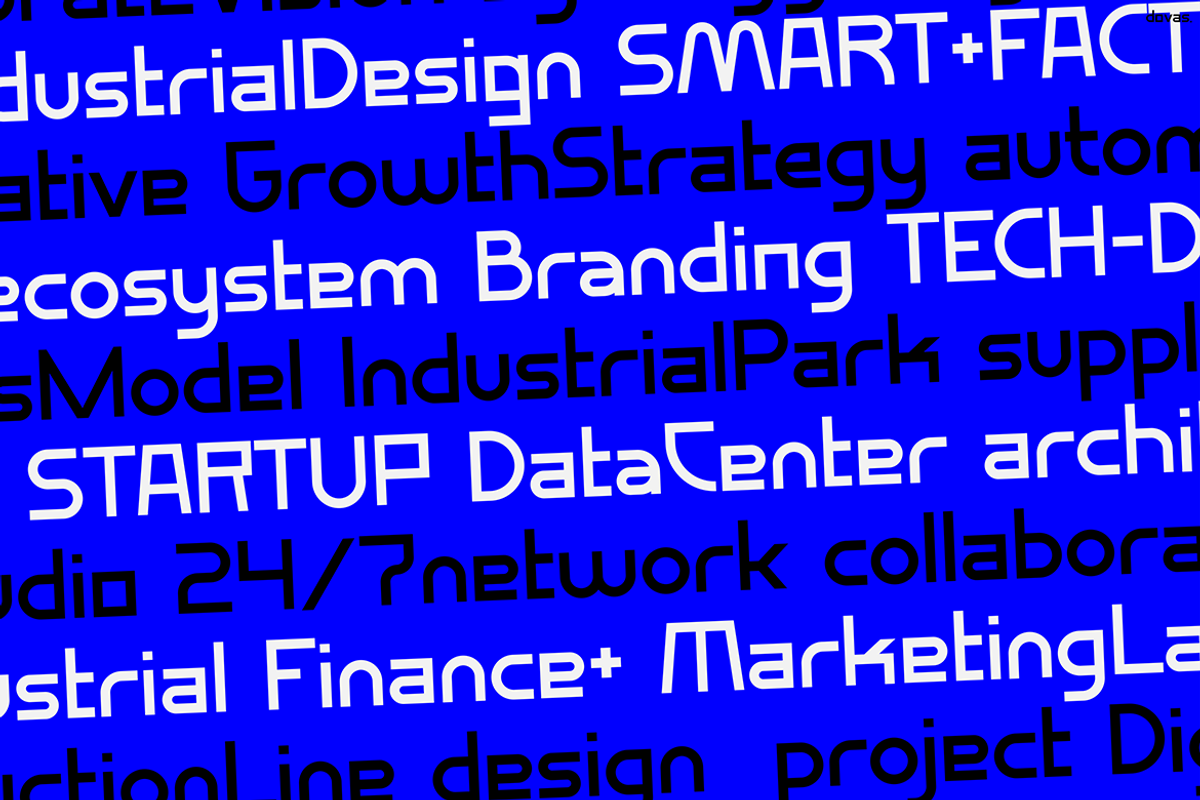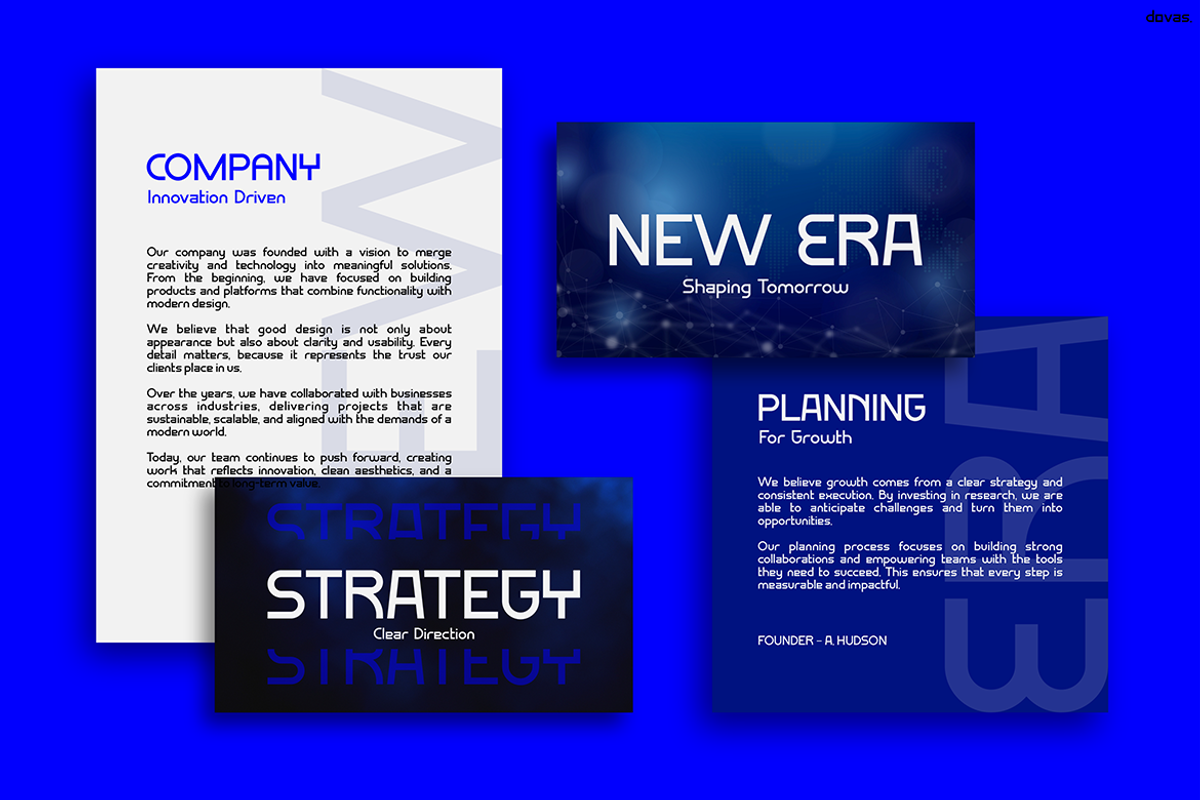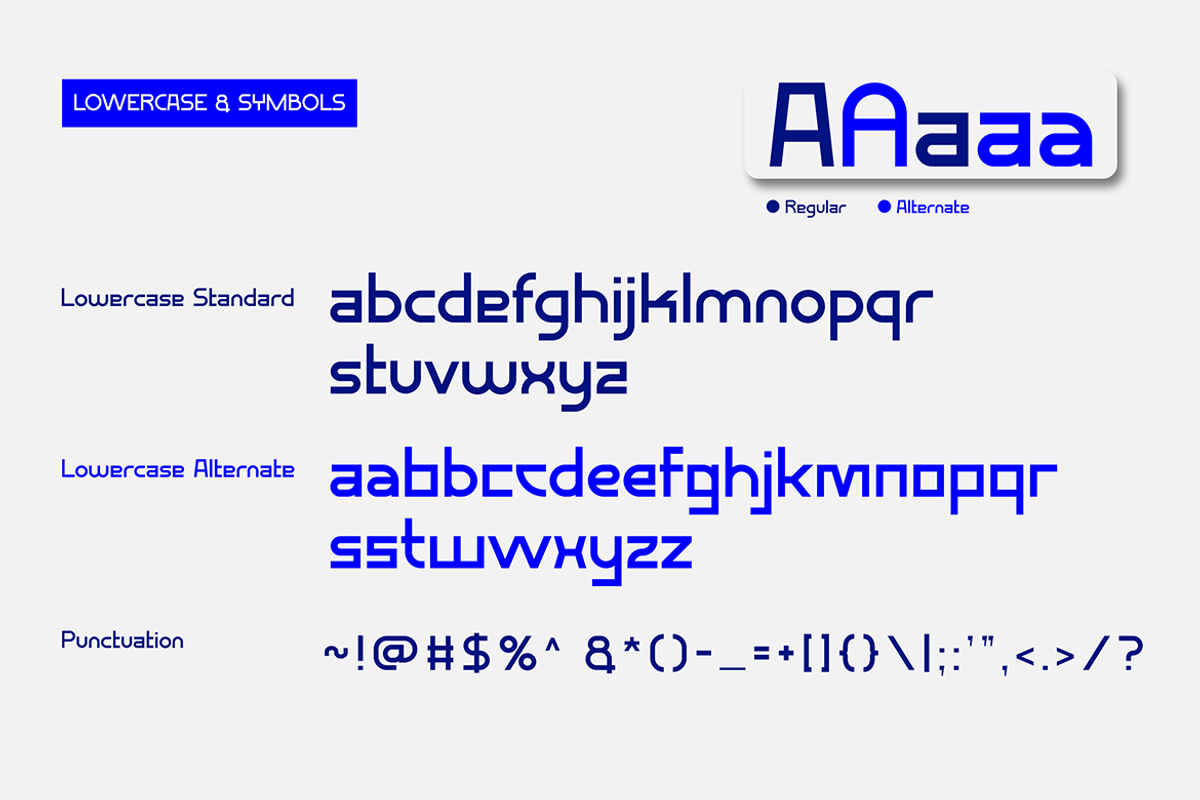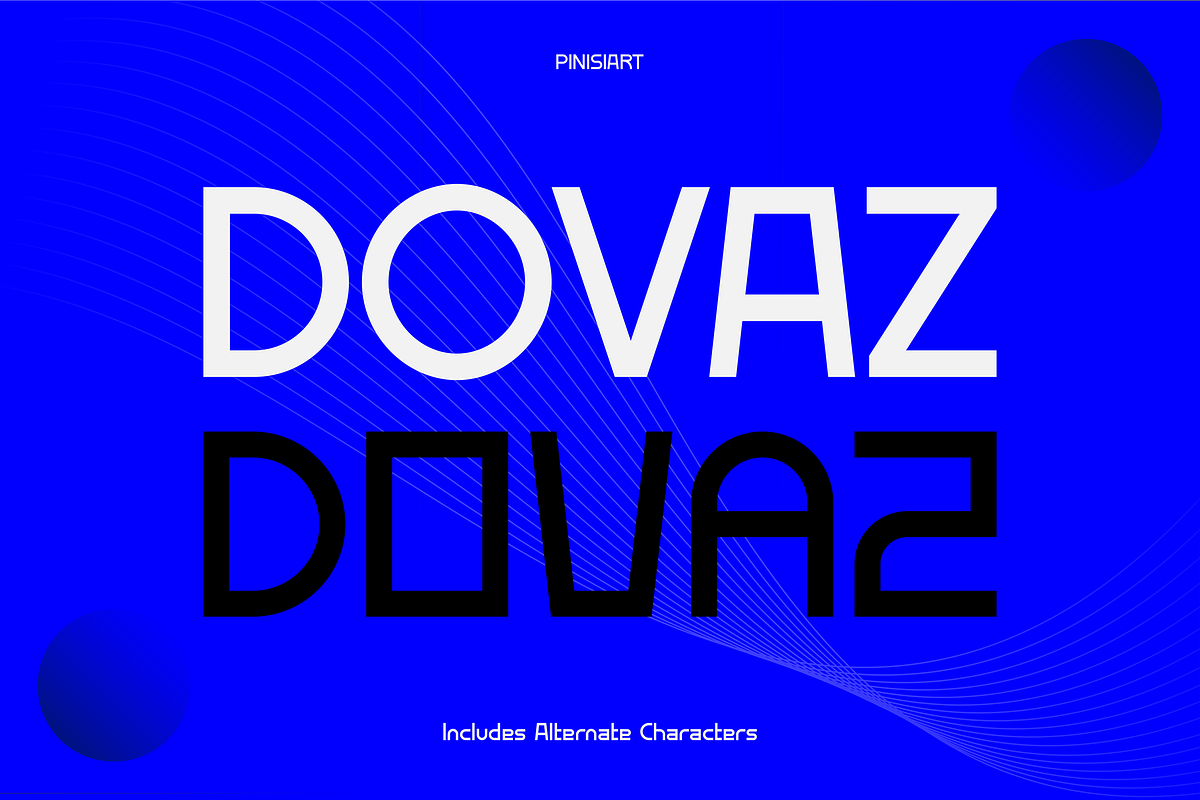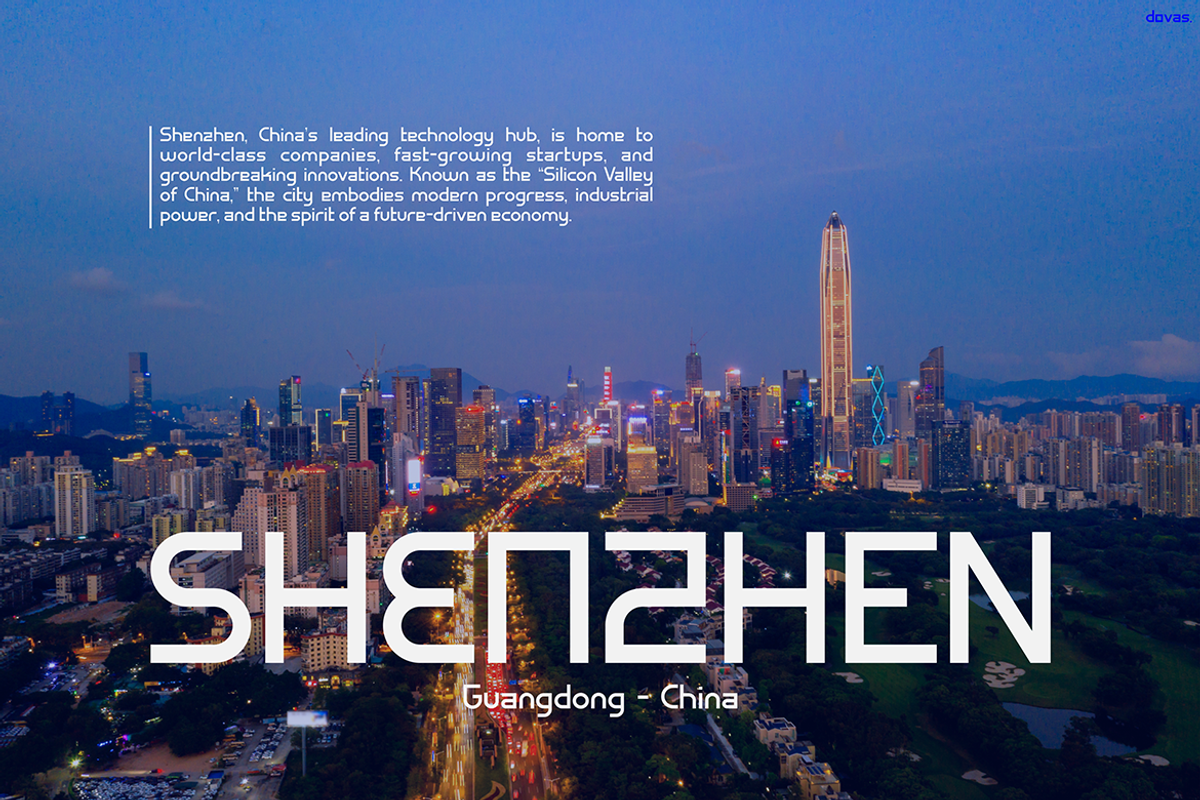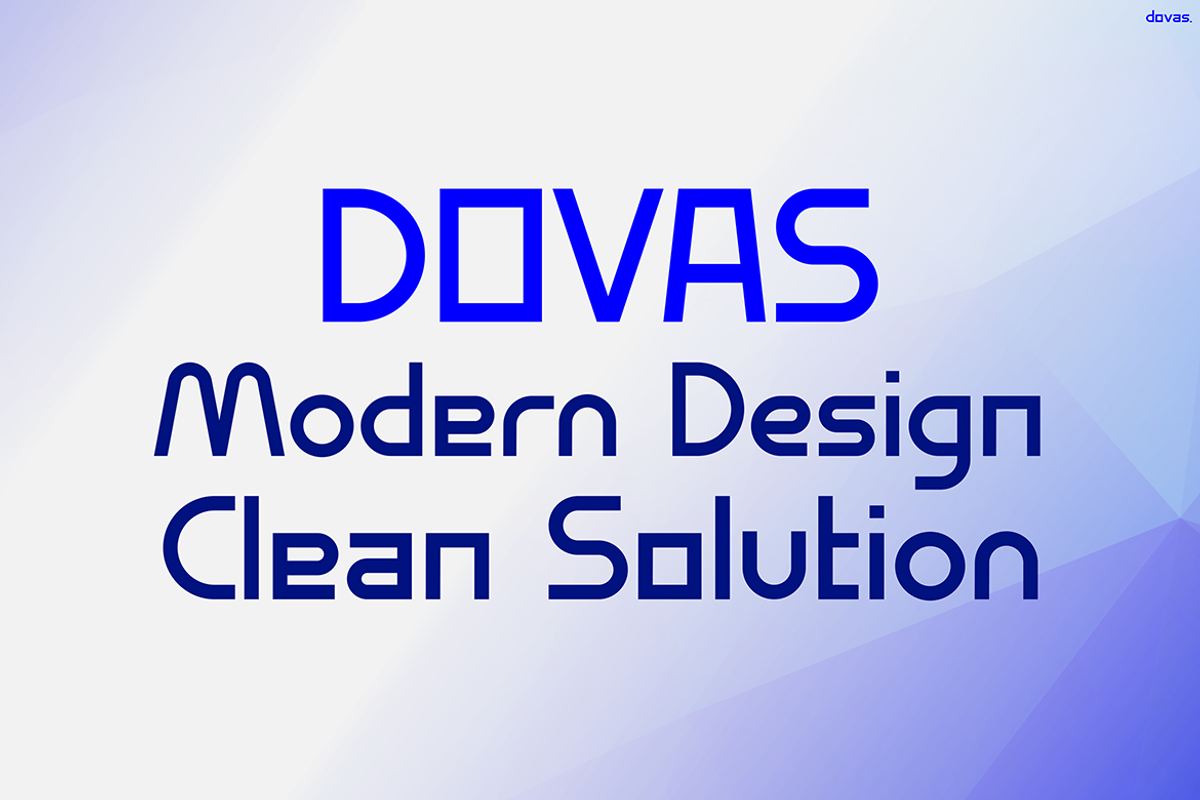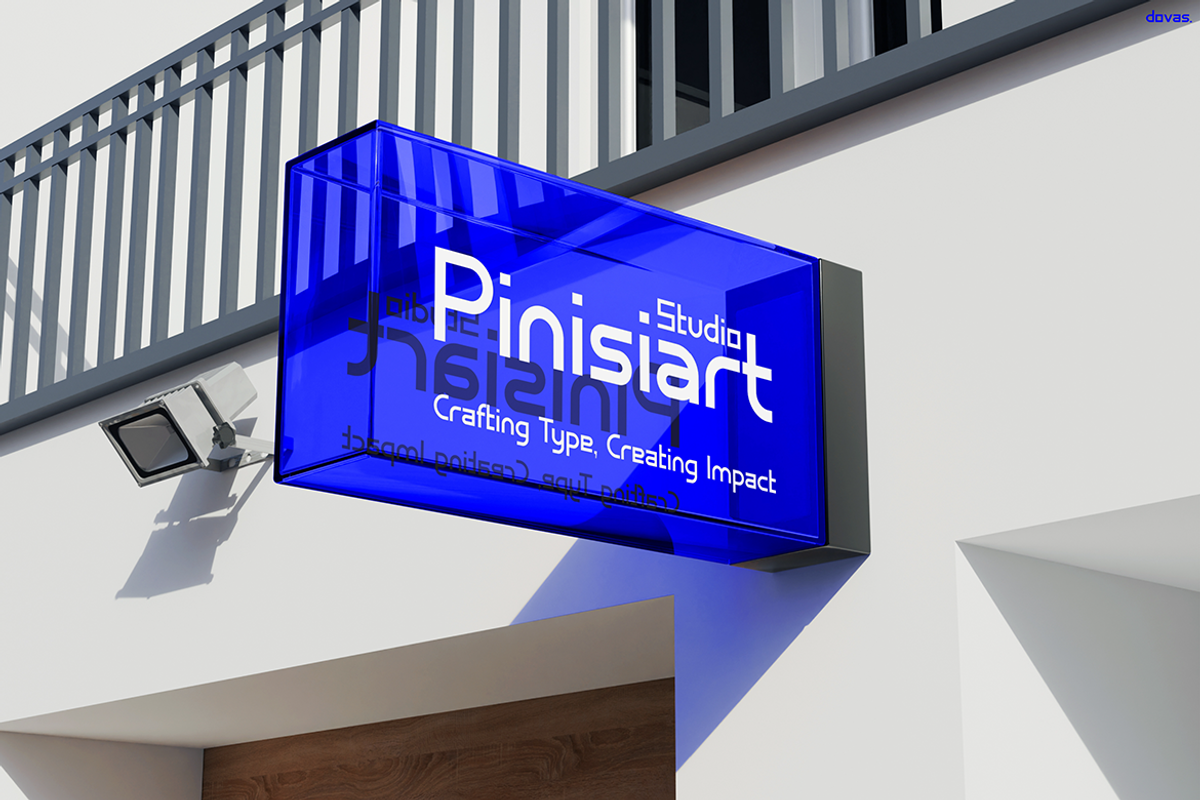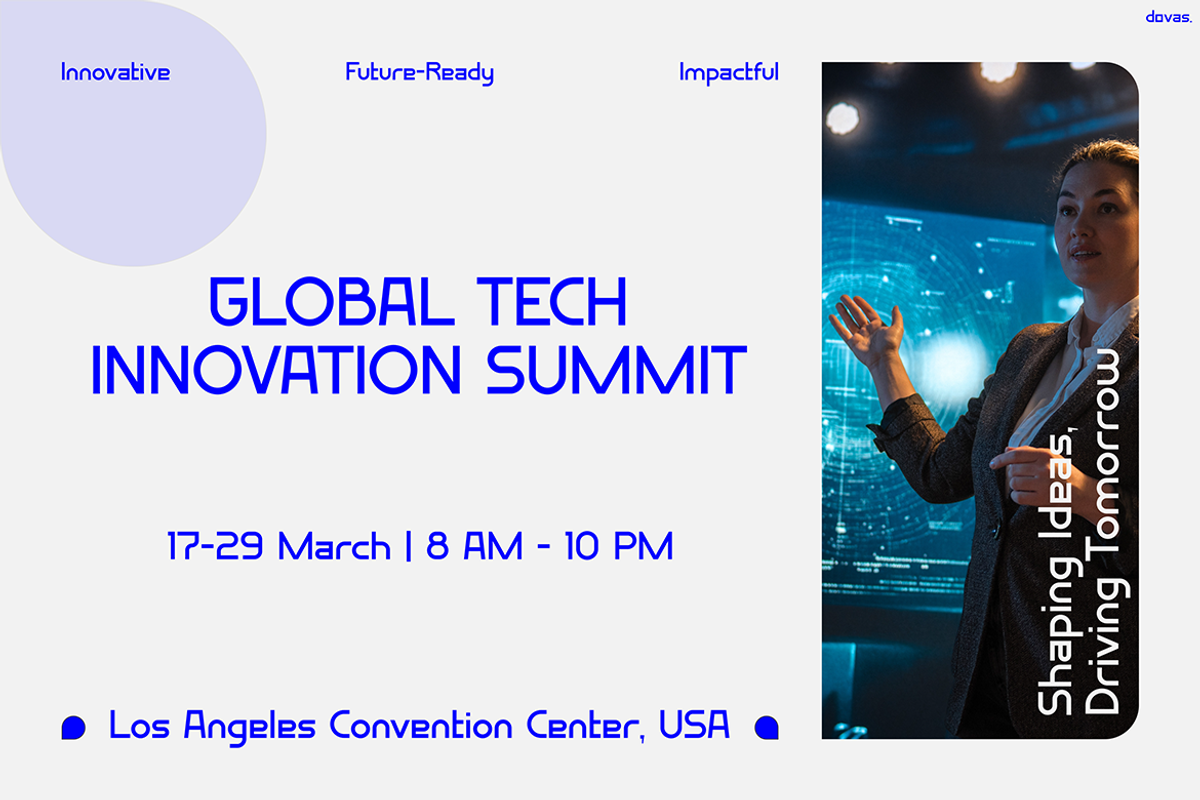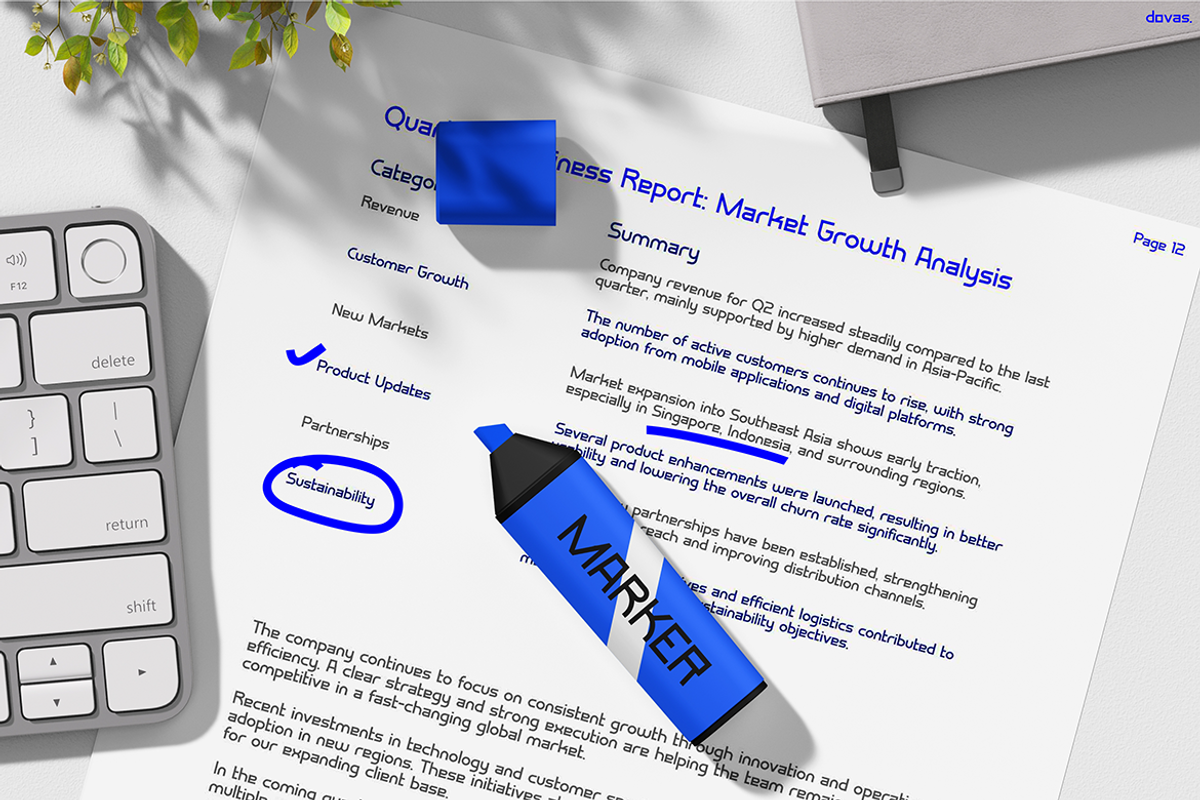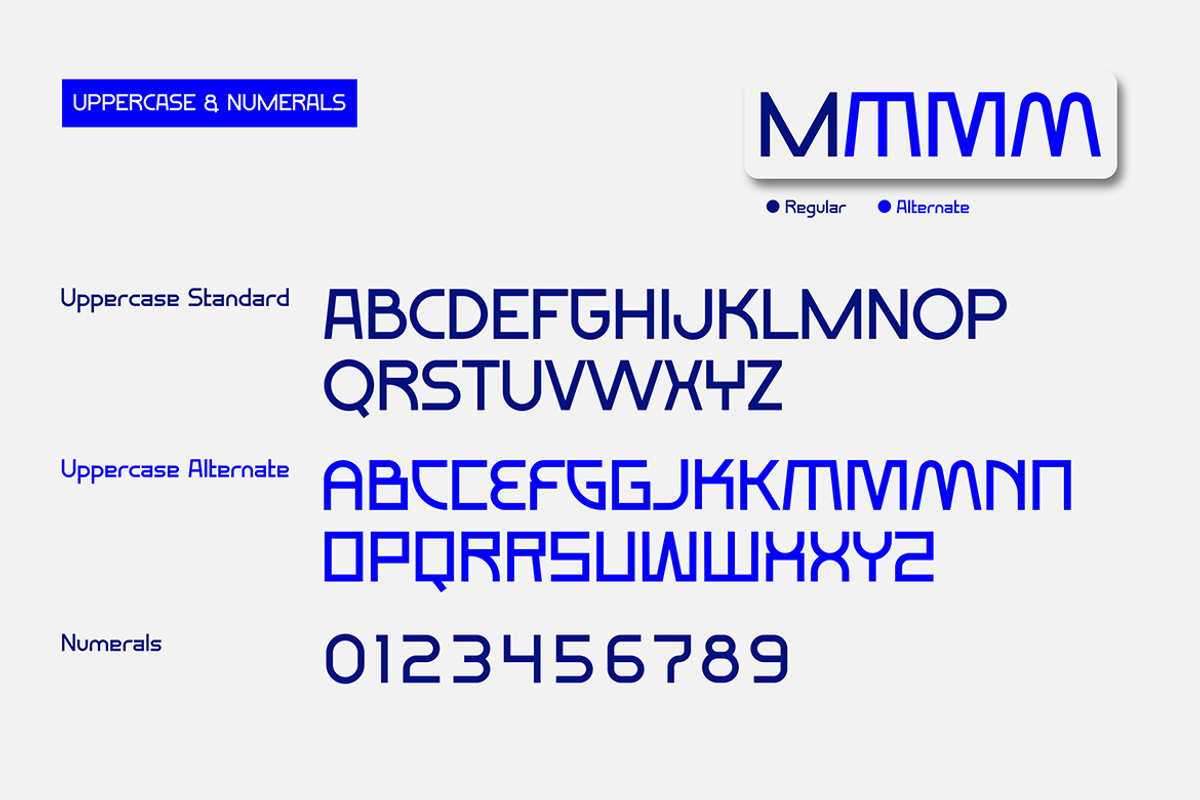
DOVAZ
Futuristic Font DOVAZ – Bold, Modern, and Versatile
Futuristic Font DOVAZ is a striking typeface with bold geometric forms and clean modern lines. It offers a strong futuristic look that feels both unique and professional. Moreover, what makes this font stand out is its multiple alternate styles, giving you the freedom to adapt and customize your designs. As a result, with DOVAZ you can create projects that look fresh, modern, and innovative while remaining clear and easy to read.
Why This Font is Special Futuristic Font DOVAZ is more than just a single typeface. In fact, it comes with several alternates that make it versatile for different design moods. Therefore, you can easily switch styles to add variety without needing another font family. The sharp angles and futuristic shapes instantly draw attention, while the spacing and balance ensure readability. In addition, its design works well for both large displays and digital interfaces. Thus, it is perfect for headlines, posters, branding, and corporate presentations that need to impress.